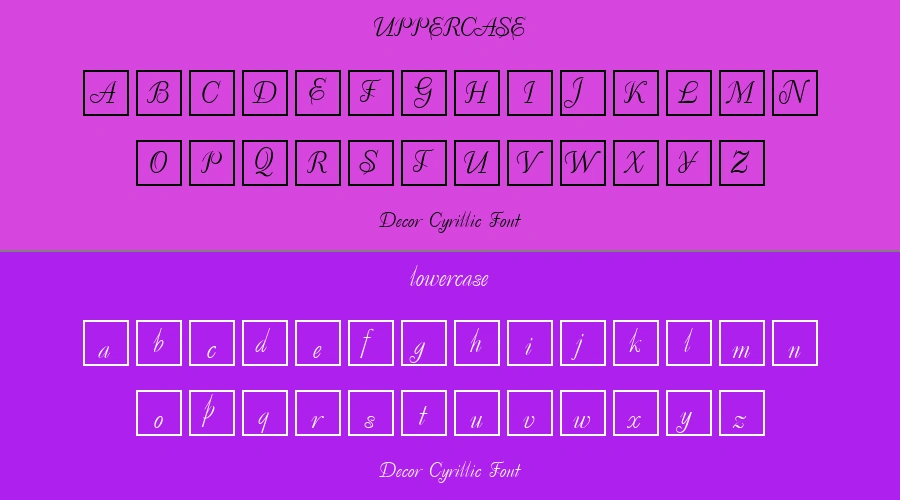
About Decor Cyrillic Font
Designed with precision, Decor Cyrillic Font merges hand-drawn quality with professional finish in every character. This versatility makes it particularly effective for architectural plans, where refinement and academic acceptance directly impact communication quality. Each letterform demonstrates meticulous craftsmanship.
Technical excellence shines through elements like transitional forms and connecting forms, enhancing typographic versatility. In artistic statements settings, Decor Cyrillic Font proves its worth through superior footnote clarity. The thoughtful execution of tail length and artistic influences ensures professional results.